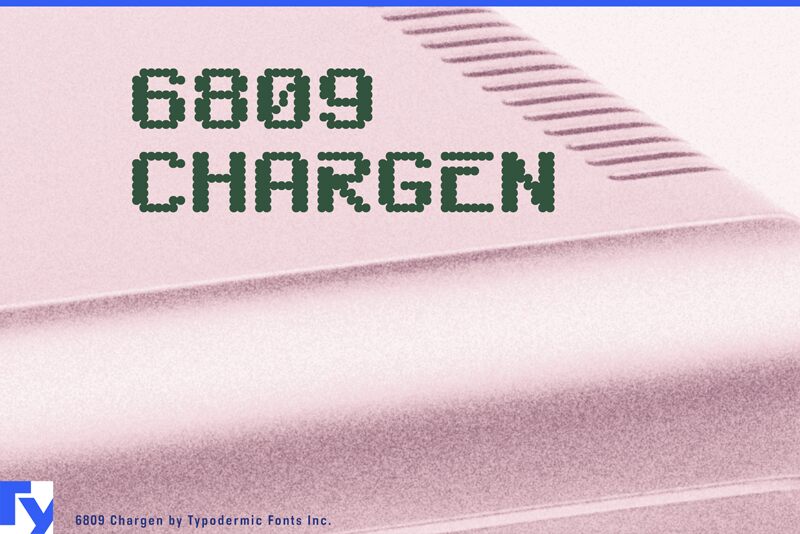
A throwback to some of the earliest fonts I made for the TRS-80 Color Computer, 6809 Chargen has been updated with improved vertical metrics for cross-browser web performance More languages are supported and accents have been redesigned. Spacing and kerning have been improved. More math symbols and punctuation, fractions and numeric ordinals dee doo dee doo.